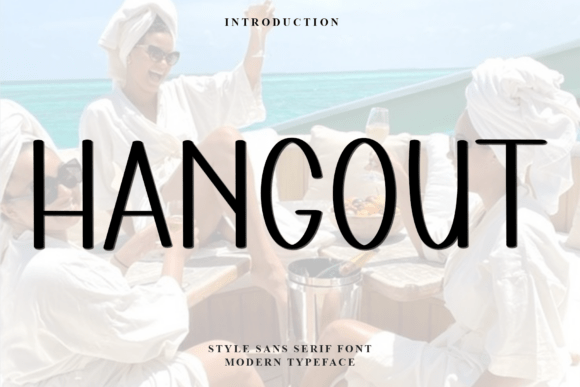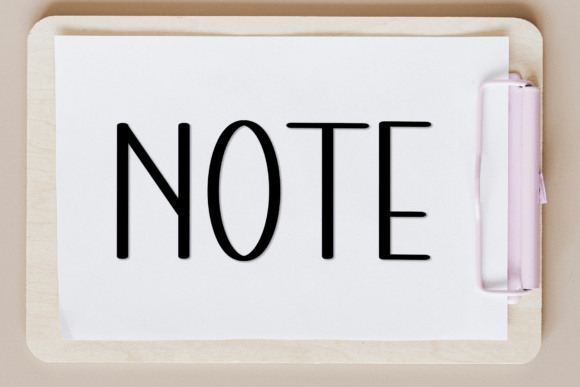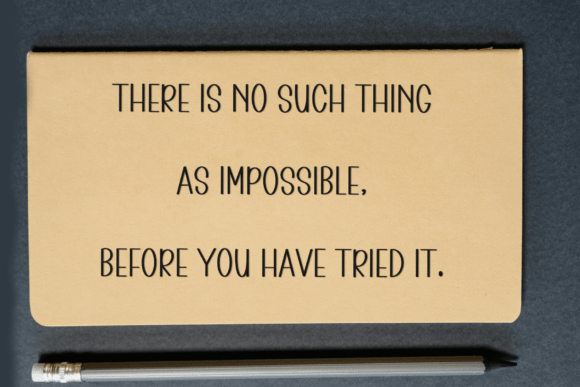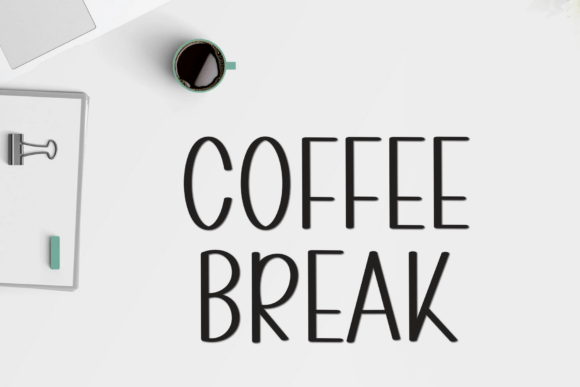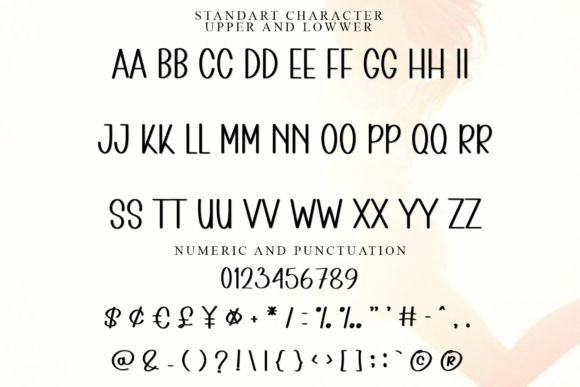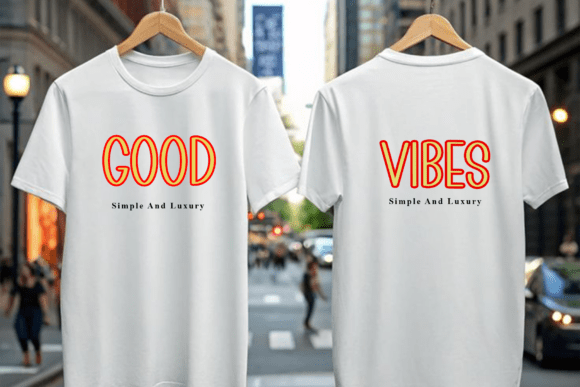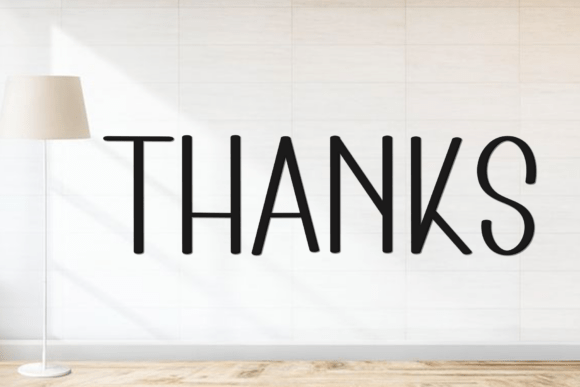
Deck the Halls with the Perfect Holiday Font
There’s nothing quite like the feeling of sitting down with a warm cup of hot cocoa, surrounded by twinkling lights and festive decorations, and getting lost in the magic of the holiday season. As designers, we know that the right font can make all the difference in capturing the essence of this special time of year. That’s where the Hangout Font comes in – a merry and whimsical typeface that’s sure to add a touch of enchantment to your holiday designs.
With its decorative elements and playful flair, the Hangout Font is the perfect choice for greeting cards, gift tags, and holiday-themed projects. And with its PUA encoding, you’ll have easy access to all the amazing glyphs and ligatures that make this font truly special. Whether you’re a seasoned designer or just starting out, the Hangout Font is a valuable addition to your toolkit – and a great way to add some holiday cheer to your typography.
Hangout Font Key Features
- Font Family: Hangout Font is a sans-serif font family designed for digital use.
- Character Set: Includes a wide range of characters, including Latin, Cyrillic, and Greek alphabets, as well as punctuation and symbols.
- Unique Characteristics: Hangout Font features a clean, modern design with a subtle rounded edge, making it suitable for a wide range of digital and print applications.
Hangout Font Review
Overall, I think Hangout Font is a solid choice for a sans-serif font, but it’s not without its limitations.
- Modern aesthetic: Hangout Font has a clean and modern look that’s perfect for digital applications.
- High legibility: The font is highly legible, making it easy to read even at smaller font sizes.
- Large character set: Hangout Font includes a wide range of characters, including accented letters and symbols.
- Limited personality: While Hangout Font is clean and modern, it’s also a bit generic and lacks personality.
- Not suitable for print: The font’s design may not be suitable for print applications, as it can appear too digital.
- May not work well at extreme sizes: While Hangout Font is highly legible, it may not work well at extreme font sizes, such as very small or very large.
Overall, I think Hangout Font is a good choice for digital applications, but it’s not a bad idea to have a backup font for print or for situations where a more unique personality is desired.
Hangout Font is ideal for creating playful, casual designs. Use it for social media graphics, flyers, or posters.
For best results, pair Hangout Font with other bold, playful fonts to create a unique and eye-catching design.
Alternatives to Hangout Font for Designers
Playfair Display is a luxurious and elegant font, perfect for creating a high-end or vintage feel. It is ideal for use in headings, titles, and other prominent text elements. Compared to Hangout Font, Playfair Display is more formal and less casual, making it suitable for a wider range of design applications.
Pacifico is a beautiful, cursive font that is perfect for creating a relaxed and casual atmosphere. It is ideal for use in branding, logos, and other design elements where a friendly and approachable feel is desired. Compared to Hangout Font, Pacifico is more flowing and less block-like, making it suitable for use in a variety of design contexts.
Great Vibes is a modern and elegant font that is perfect for creating a sophisticated and stylish look. It is ideal for use in headings, titles, and other prominent text elements. Compared to Hangout Font, Great Vibes is more refined and less casual, making it suitable for a wider range of design applications.